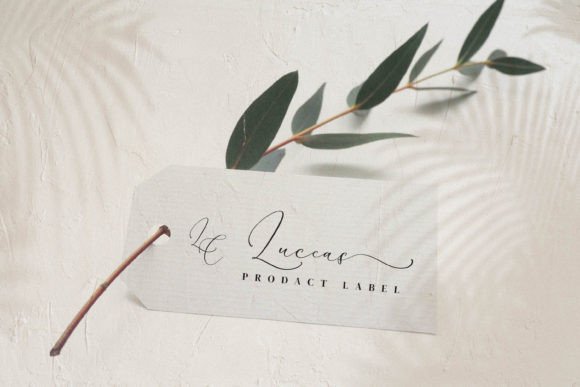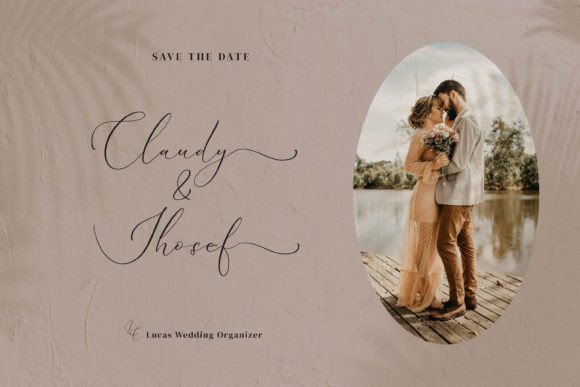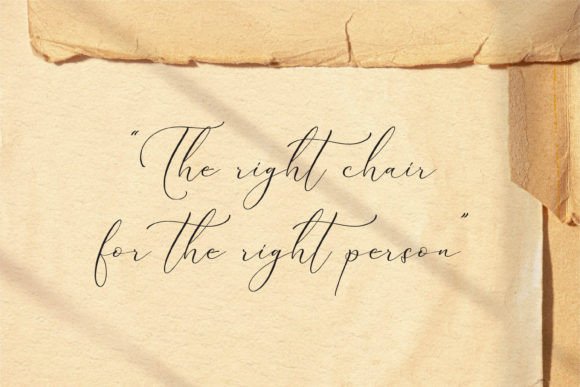
Introduction to Qinarsi Font
Qinarsi is a dazzling script font.
This font is neatly crafted and highly detailed Whatever the topic, this font will be a wonderful asset to your font library, as it has the potential to enhance any creation.
Key Features of Qinarsi Font
Why Choose Qinarsi Font?
Qinarsi Font offers exceptional quality and versatility, making it a valuable addition to your design toolkit. Whether you’re creating for personal projects or commercial use, Qinarsi Font delivers professional results.